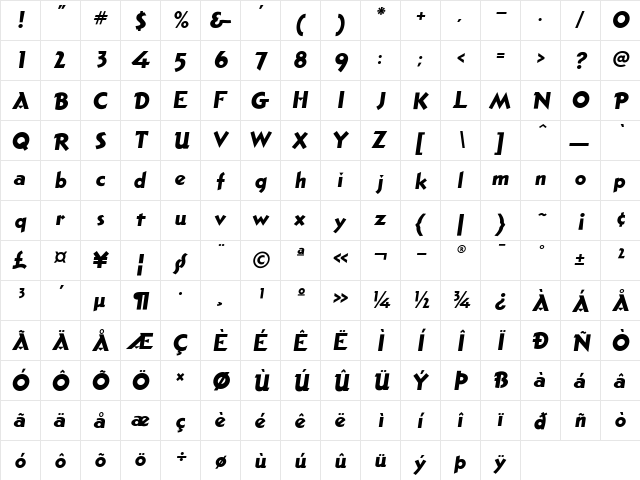
Pacific Regular
Design Context for Pacific Typeface
Pacific is a composed and adaptable typeface that performs quietly and consistently across a wide range of design contexts.